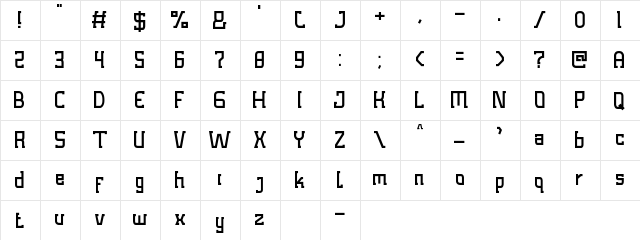
Lobots Regular
Design Context for Lobots Typeface
Lobots takes a measured approach to typography — its balanced proportions and neutral character make it a reliable workhorse for both digital and print work.